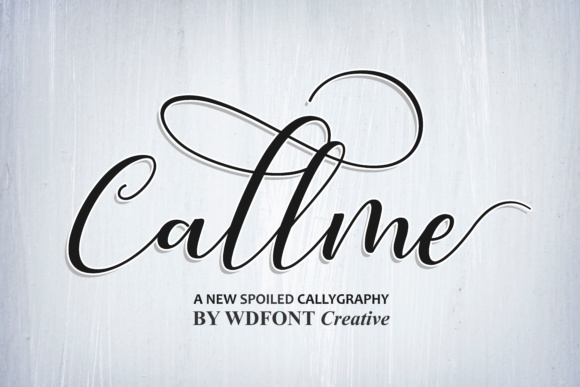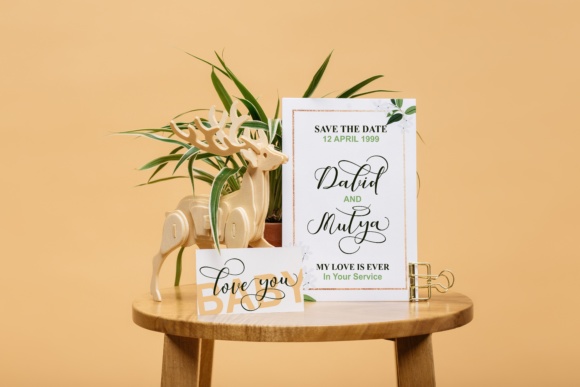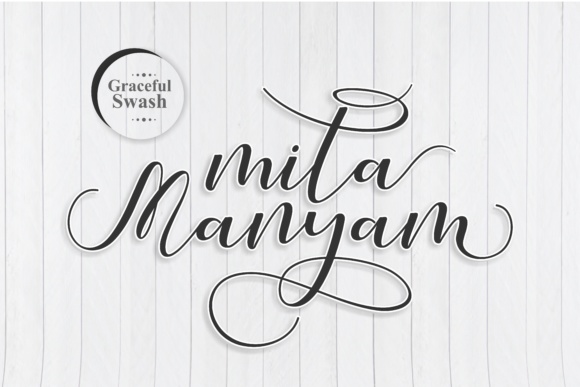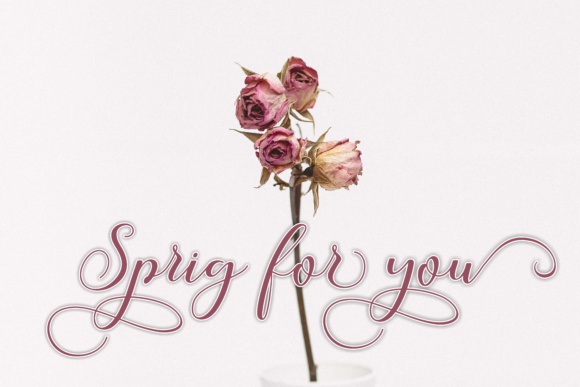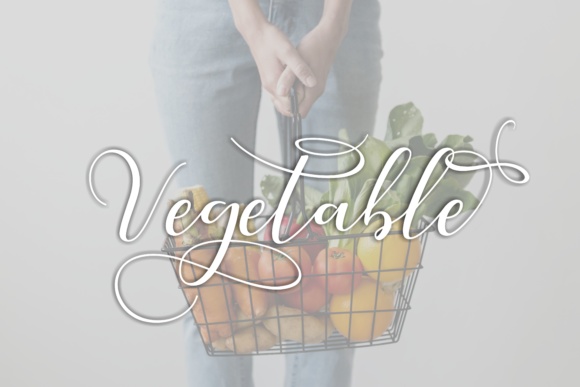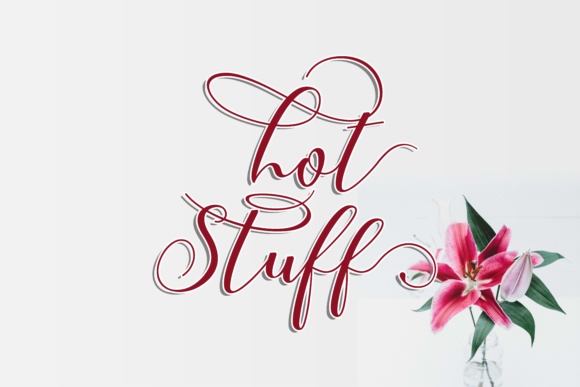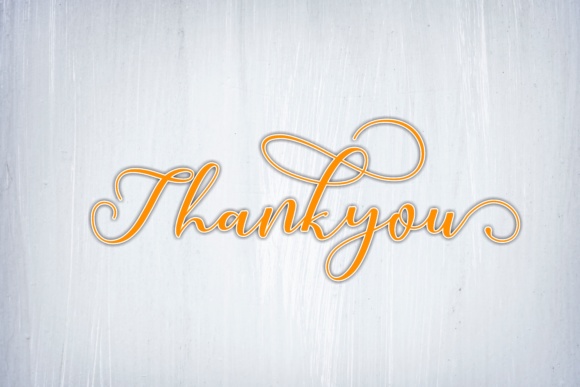
Callme Script Font
About Callme Script Font
The Callme is a script font with a smooth handwritten style. It’s perfect for branding projects, logos, product packaging, and more! It can be used simply as a stylish text overlay to any background image or anything requiring a sprinkle of elegance.